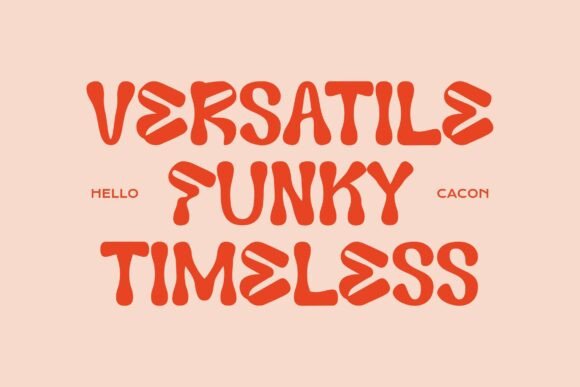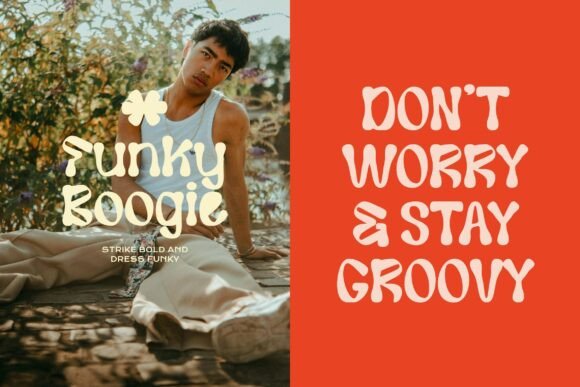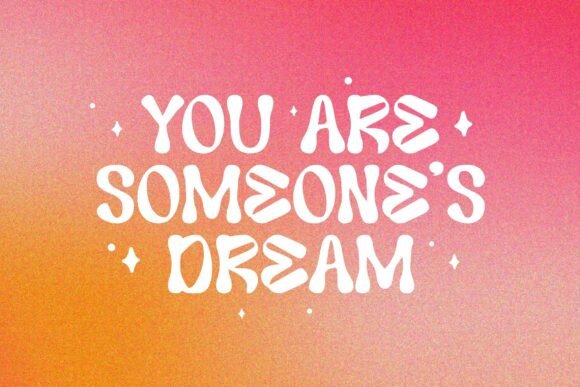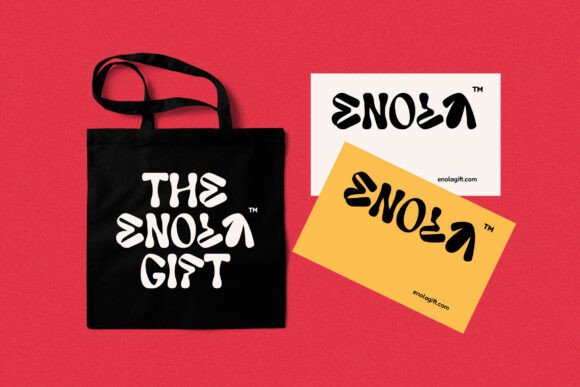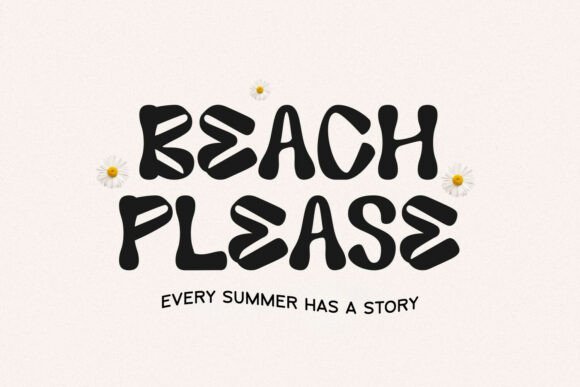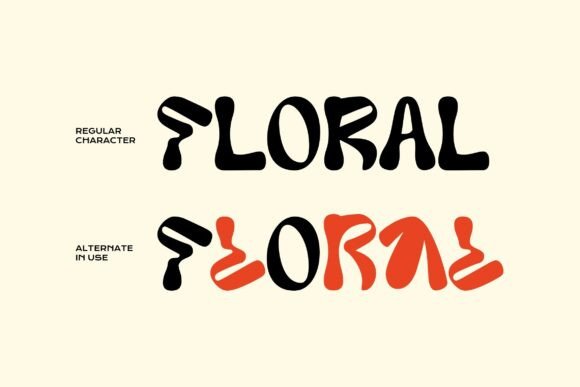
Hello Cacon Font: The Groovy, Funky Typeface of the 1970s
Are you looking for a font that embodies the carefree spirit of the 1970s? Do you want to add a playful, funky, and retro-inspired aesthetic to your designs? Look no further than the Hello Cacon font. This groovy typeface is perfect for creative projects that require a unique and eye-catching look.
The Characteristics of Hello Cacon Font
Hello Cacon is a one-of-a-kind font that channels the funky spirit of the 1970s. Its heavy, uneven letterforms give it a distinctive look that’s sure to grab attention. The soft, bloated terminals add a touch of playfulness, while the slightly wavy, organic silhouette of each letter gives it a retro feel.
The font’s unique characteristics make it perfect for designs that require a bold and eye-catching look. Whether you’re working on a youth fashion branding project, creating music festival posters, or designing album covers, Hello Cacon is the perfect choice.
Uses for Hello Cacon Font
Hello Cacon is a versatile font that can be used in a variety of creative projects. Here are some ideas to get you started:
• Youth Fashion Branding: Add a funky touch to your fashion brand with Hello Cacon. The font’s playful and retro-inspired aesthetic is perfect for clothing labels, logos, and packaging.
• Music Festival Posters: Create eye-catching posters for music festivals and concerts with Hello Cacon. The font’s bold and funky look is sure to grab attention.
• Album Covers: Give your album covers a retro-inspired look with Hello Cacon. The font’s unique characteristics make it perfect for music artists who want to stand out.
• 70s Themed Party Invitations: Create invitations for 70s-themed parties that will transport your guests back in time. Hello Cacon is the perfect font for the job.
• Vintage Car Shows: Add a touch of nostalgia to your vintage car show posters and signage with Hello Cacon.
• Social Media Graphics: Use Hello Cacon to create eye-catching social media graphics that will make your followers smile.
Why Choose Hello Cacon Font?
So why choose Hello Cacon font for your creative projects? Here are just a few reasons:
• Unique Look: Hello Cacon has a unique look that’s sure to grab attention. Its heavy, uneven letterforms and soft, bloated terminals make it stand out from other fonts.
• Playful Aesthetic: The font’s playful and retro-inspired aesthetic makes it perfect for designs that require a fun and carefree look.
• Versatility: Hello Cacon is a versatile font that can be used in a variety of creative projects, from fashion branding to music festival posters.
Hello Cacon font is a groovy, funky typeface that’s perfect for creative projects that require a playful, retro-inspired aesthetic. Its unique characteristics make it stand out from other fonts, and its versatility makes it suitable for a wide range of uses. Whether you’re a designer, craft, or simply someone who loves the 1970s, Hello Cacon is a font that’s sure to bring a smile to your face.